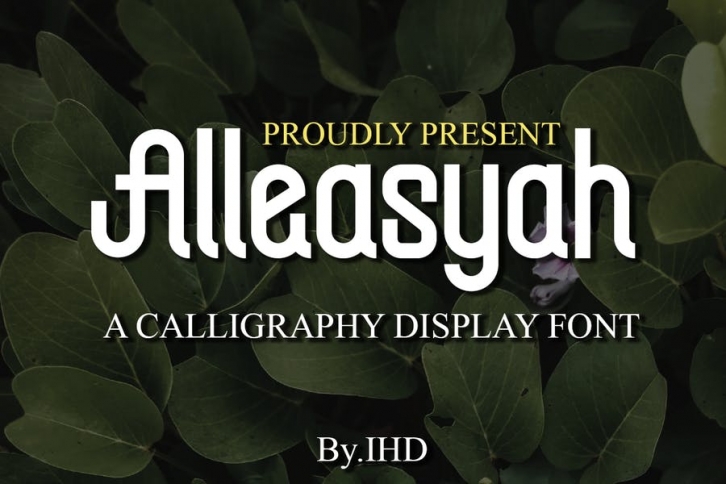
Alleasyah Calligraphy Display Font
font is our new item that suitable for your Posters.
Great for Logo, Poster, Sticker, Jersey, Invitation Card, Brochure, etc.